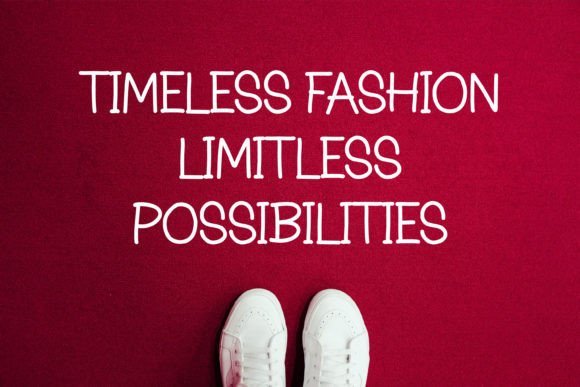
Introducing Estola: A Beautifully Elegant Handwritten Font
Are you looking for a font that adds a personal touch to your designs? Look no further than Estola, a stunning handwritten font that captures the essence of creativity and elegance. With its flowing, natural strokes, Estola brings a charming, human feel to any project, making it perfect for a wide range of applications, from logos and wedding invitations to social media posts and branding.
The Characteristics of Estola Font
Estola is a beautifully elegant handwritten font that boasts a range of characteristics that set it apart from other fonts. Its delicate and refined style brings sophistication and warmth to any design, making it perfect for projects where you want to create an intimate and memorable impression.
- Flowing, natural strokes: Estola’s strokes are smooth and fluid, giving the font a natural, handwritten feel that’s perfect for creating a personal connection with your audience.
- Elegant and refined: Estola’s elegant and refined style makes it perfect for high-end branding, luxury goods, and sophisticated designs.
- Charming and human: Estola’s charming, human feel makes it perfect for projects where you want to create a personal connection with your audience, such as wedding invitations, social media posts, and blogs.
What Makes Estola Font So Versatile?
Estola’s versatility is one of its standout features. This font can be used for a wide range of projects, from logos and branding to wedding invitations and social media posts. Its elegant and refined style makes it perfect for high-end applications, while its charming and human feel makes it perfect for more personal projects.
Here are just a few examples of how you can use Estola:
- Logos and branding: Estola’s elegant and refined style makes it perfect for logos and branding, particularly for high-end or luxury goods.
- Wedding invitations: Estola’s charming and human feel makes it perfect for wedding invitations, adding a personal touch to this special occasion.
- Social media posts: Estola’s flowing, natural strokes make it perfect for social media posts, adding a touch of elegance and sophistication to your online presence.
- Blogs and articles: Estola’s elegant and refined style makes it perfect for blogs and articles, adding a touch of sophistication to your written content.
The Benefits of Using Estola Font
There are many benefits to using Estola font in your designs. Here are just a few:
- Personal touch: Estola adds a personal touch to your designs, creating a connection with your audience that’s hard to achieve with more formal fonts.
- Sophistication and elegance: Estola’s elegant and refined style brings sophistication and elegance to your designs, perfect for high-end applications.
- Versatility: Estola is a versatile font that can be used for a wide range of projects, from logos and branding to wedding invitations and social media posts.
- Memorability: Estola’s charming and human feel makes your designs more memorable, helping you to build a lasting impression with your audience.
How to Use Estola Font Effectively
To get the most out of Estola font, here are a few tips for using it effectively:
- Use it sparingly: Estola is a elegant and refined font, so use it sparingly to avoid overwhelming your designs.
- Pair it with other fonts: Estola pairs well with other fonts, so experiment with different combinations to find the perfect look for your designs.
- Experiment with different sizes: Estola looks great in a range of sizes, from large headings to smaller body text.
- Pay attention to spacing: Make sure to pay attention to spacing when using Estola, as it can affect the overall flow and elegance of your designs.
In conclusion, Estola font is a beautifully elegant handwritten font that captures the essence of personal touch and creativity. With its flowing, natural strokes, Estola adds a charming, human feel to any project, making it perfect for a wide range of applications. Whether you’re looking to create a sophisticated brand identity, a beautiful wedding invitation, or a memorable social media post, Estola is the perfect choice.